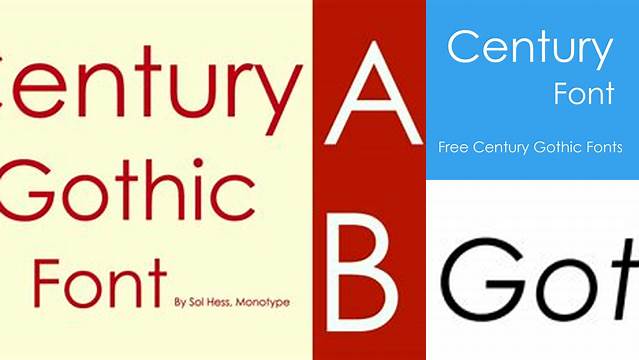
Hey guys! Looking to spice up your design projects with a sleek and modern font? You've come to the right place! In this article, we're diving deep into the world of Century Gothic Pro, a super versatile typeface that can add a touch of class to just about anything. We'll cover everything from its history and characteristics to where you can find it and how to use it effectively. So, buckle up and let's get started!
1. What is Century Gothic Pro Font?
Century Gothic Pro is a geometric sans-serif typeface that's known for its clean lines and modern aesthetic. It's super readable, making it a great choice for both body text and headlines. Its design is inspired by the classic geometric fonts of the early 20th century, but with a contemporary twist. Century Gothic Pro stands out due to its simple yet elegant appearance, making it a favorite among designers. This makes it a fantastic choice for a wide array of projects, including websites, posters, and branding materials. Its versatility is one of its strongest assets, allowing it to seamlessly blend into various design styles and concepts. Essentially, if you're looking for a font that's both stylish and functional, Century Gothic Pro should be on your radar.
Century Gothic Pro is a sans-serif typeface, meaning it doesn't have those little decorative strokes (serifs) at the ends of the letters. This gives it a cleaner, more contemporary look compared to serif fonts like Times New Roman or Garamond. Its geometric construction means that many of the letterforms are based on perfect circles and straight lines, which contributes to its overall clarity and readability. This makes it an ideal choice for projects where legibility is paramount, such as websites, mobile apps, and printed materials.
Whether you're designing a sleek corporate website or a vibrant poster, Century Gothic Pro can adapt to your needs. Its simplicity allows it to pair well with other fonts, giving you the flexibility to create unique and eye-catching designs. Plus, its wide range of weights and styles means you can use it for everything from headlines to body text, ensuring a consistent and professional look across your project. So, what exactly makes Century Gothic Pro so special? Let's delve deeper into its history and design characteristics to find out.
2. History and Origins of Century Gothic Pro
The history of Century Gothic Pro is a fascinating journey through the evolution of geometric sans-serif typefaces. To really appreciate this font, itâs helpful to understand where it came from. Century Gothic Pro, in its essence, draws significant inspiration from early 20th-century geometric sans-serif fonts. These fonts were characterized by their clean, minimalist designs, often based on perfect circles and straight lines. This aesthetic was a hallmark of the Bauhaus movement, which emphasized functional and modern design principles.
One of the primary influences on Century Gothic Pro is the legendary typeface Futura, designed by Paul Renner in 1927. Futura is renowned for its geometric shapes and simplicity, and you can see its DNA in Century Gothic Proâs structure. Another key influence is Monotypeâs own Twentieth Century, designed by Sol Hess in 1937. Twentieth Century shares a similar geometric approach, and it helped lay the groundwork for what Century Gothic Pro would eventually become. Century Gothic Pro was designed by Monotype in 1991. While it shares similarities with Futura and Twentieth Century, it's not a direct clone. Monotype took these classic geometric principles and refined them for modern use, creating a font that feels both familiar and fresh. The goal was to create a typeface that could excel in a variety of applications, from print to digital, while maintaining a clean and contemporary appearance. The result is a font that bridges the gap between historical design and modern aesthetics.
Over the years, Century Gothic Pro has become a staple in the design world, used in countless projects ranging from corporate branding to editorial design. Its enduring popularity is a testament to its timeless appeal and versatility. It's a font that feels at home in both professional and creative contexts, making it a go-to choice for designers around the globe. So, how does its design contribute to its widespread appeal? Let's break down its key characteristics.
3. Key Characteristics of Century Gothic Pro
So, what exactly makes Century Gothic Pro stand out? Let's break down its key characteristics. The geometric construction is one of the most defining features of Century Gothic Pro. Many of the letterforms are based on perfect circles and straight lines, giving the font a clean and structured appearance. This geometric foundation contributes to its legibility and modern aesthetic. The consistent stroke weight is another important aspect. The thickness of the lines in each letter is uniform, which enhances its readability and visual harmony. This evenness is particularly beneficial in body text, where consistency is crucial for a comfortable reading experience.
The large x-height of Century Gothic Pro also plays a significant role in its appeal. The x-height refers to the height of the lowercase letters relative to the uppercase letters. A larger x-height makes the lowercase letters appear bigger, which improves legibility, especially at smaller sizes. This characteristic makes Century Gothic Pro an excellent choice for both print and digital applications. The clean and minimalist design is another key factor. Century Gothic Pro avoids unnecessary embellishments, focusing instead on simplicity and clarity. This minimalist approach gives it a timeless quality, ensuring that it remains relevant and stylish for years to come. Its clean lines and uncluttered forms make it easy to read and visually appealing in a variety of contexts.
Another noteworthy characteristic is its versatility. Century Gothic Pro comes in a range of weights and styles, from light to bold, allowing you to use it for headlines, body text, and everything in between. This flexibility makes it a valuable asset in any designer's toolkit. In summary, Century Gothic Pro's key characteristics â geometric construction, consistent stroke weight, large x-height, and minimalist design â contribute to its overall appeal and versatility. These features combine to create a typeface that is both functional and aesthetically pleasing, making it a popular choice for a wide range of design projects. Now that we understand its key features, let's explore where you can download this fantastic font for free.